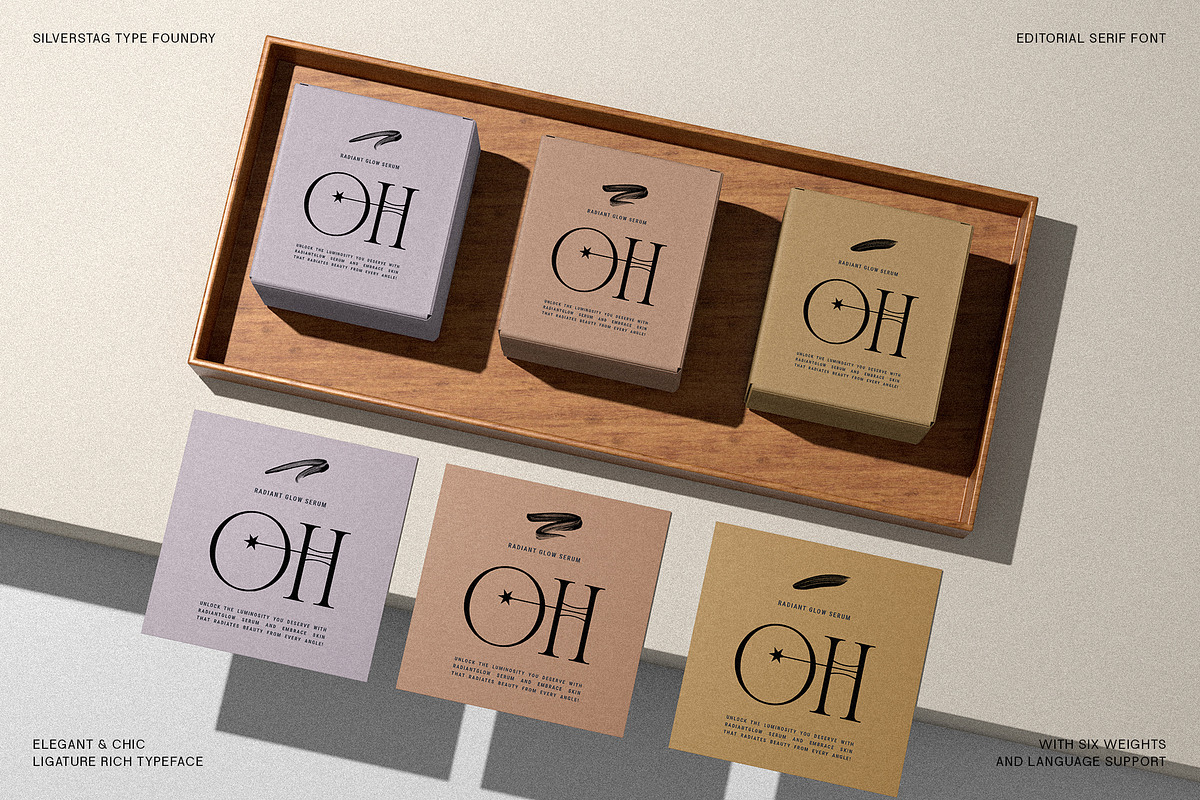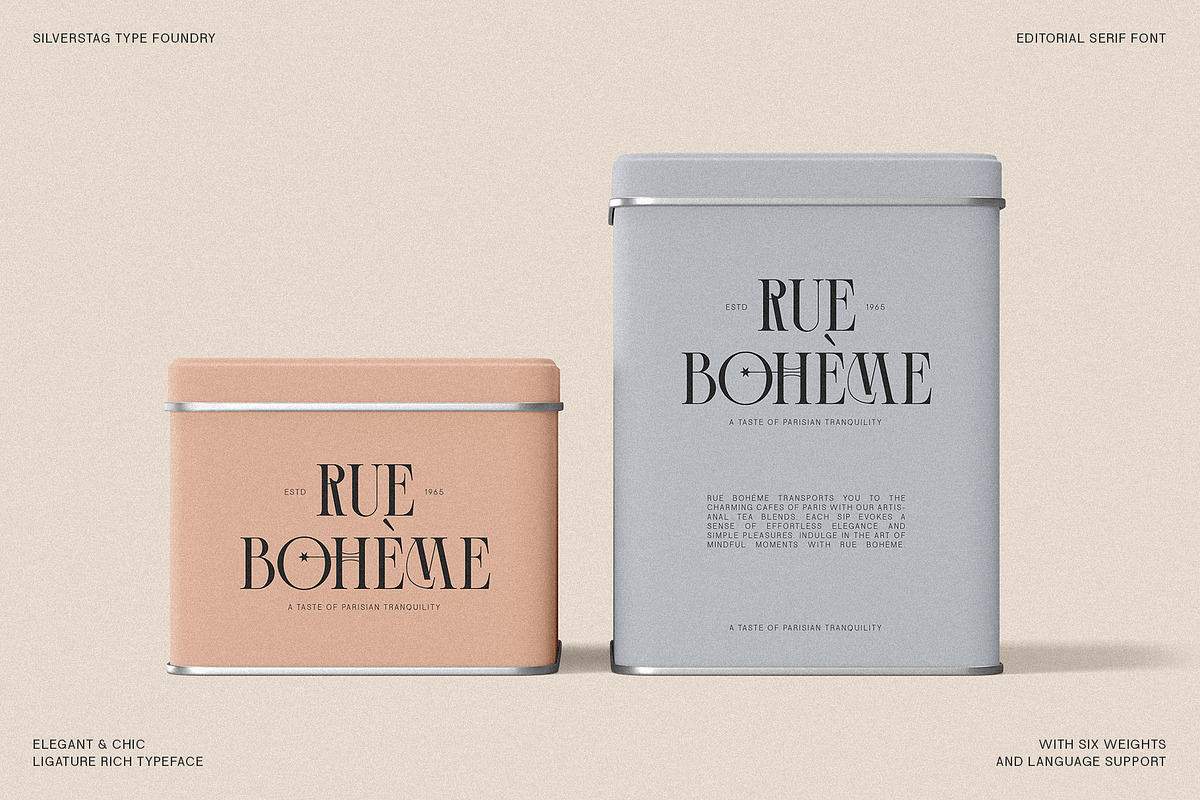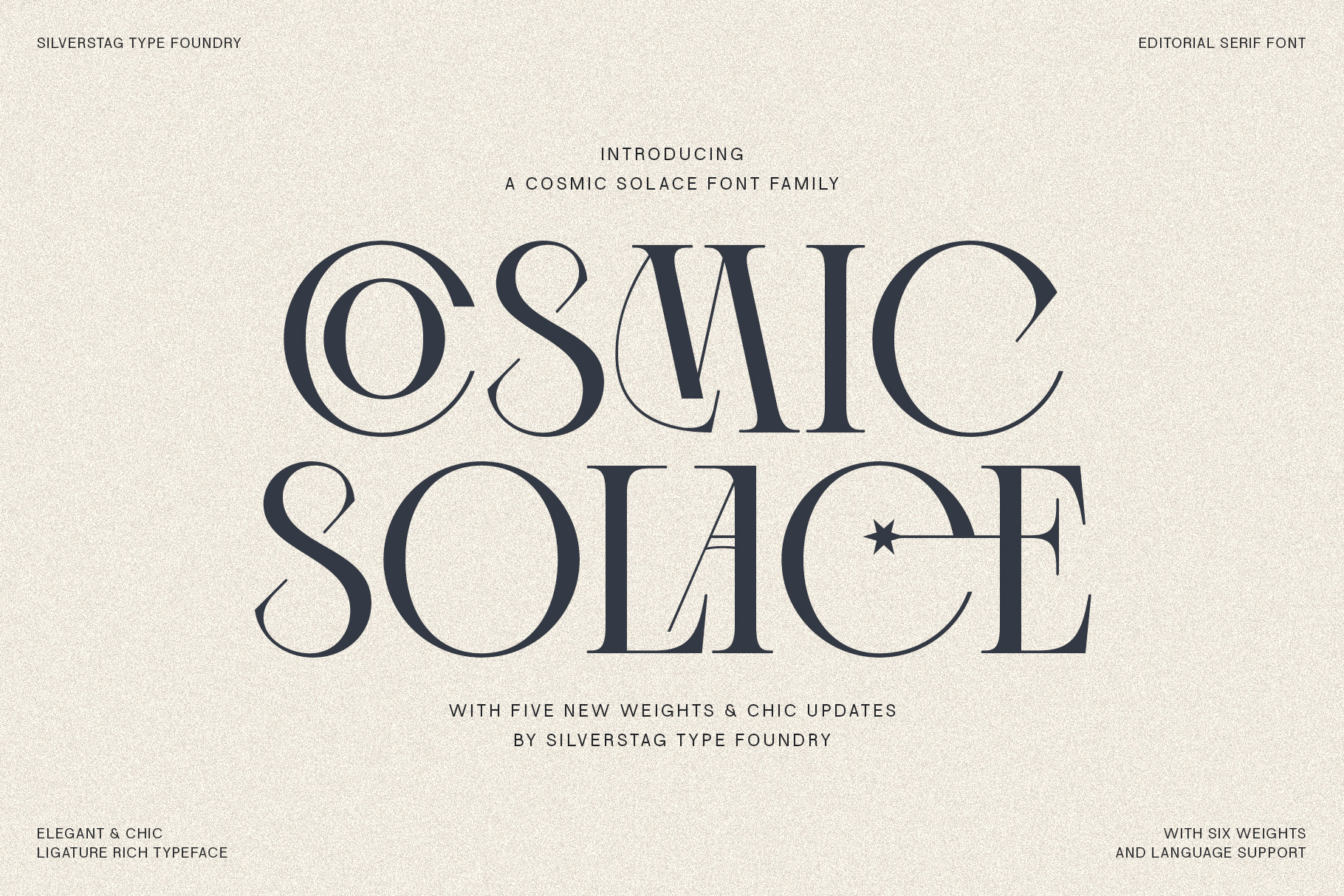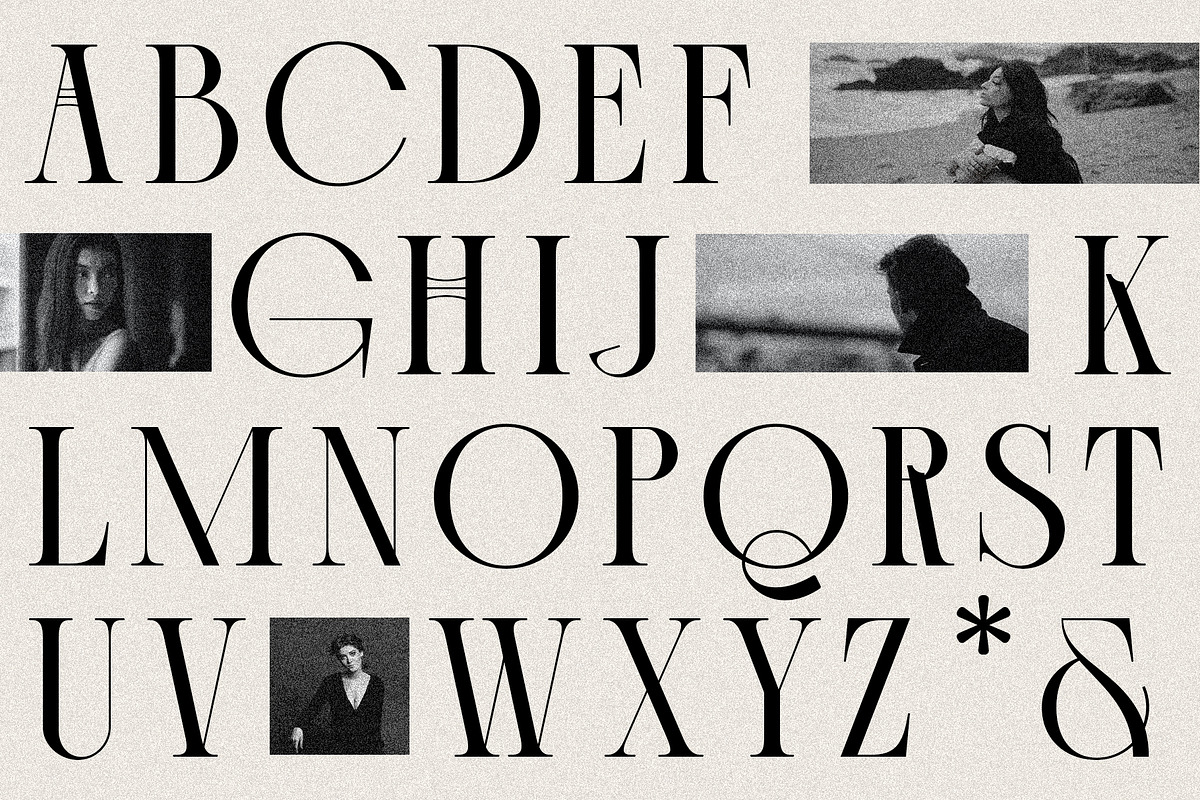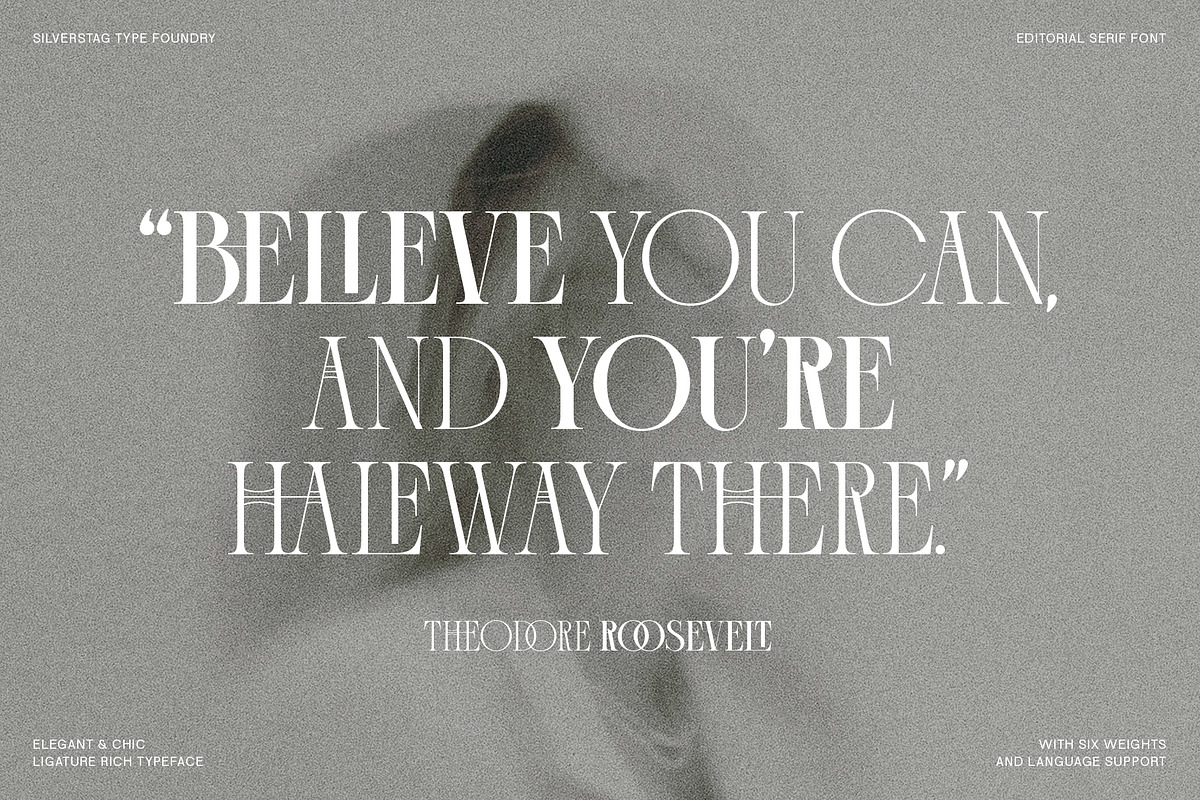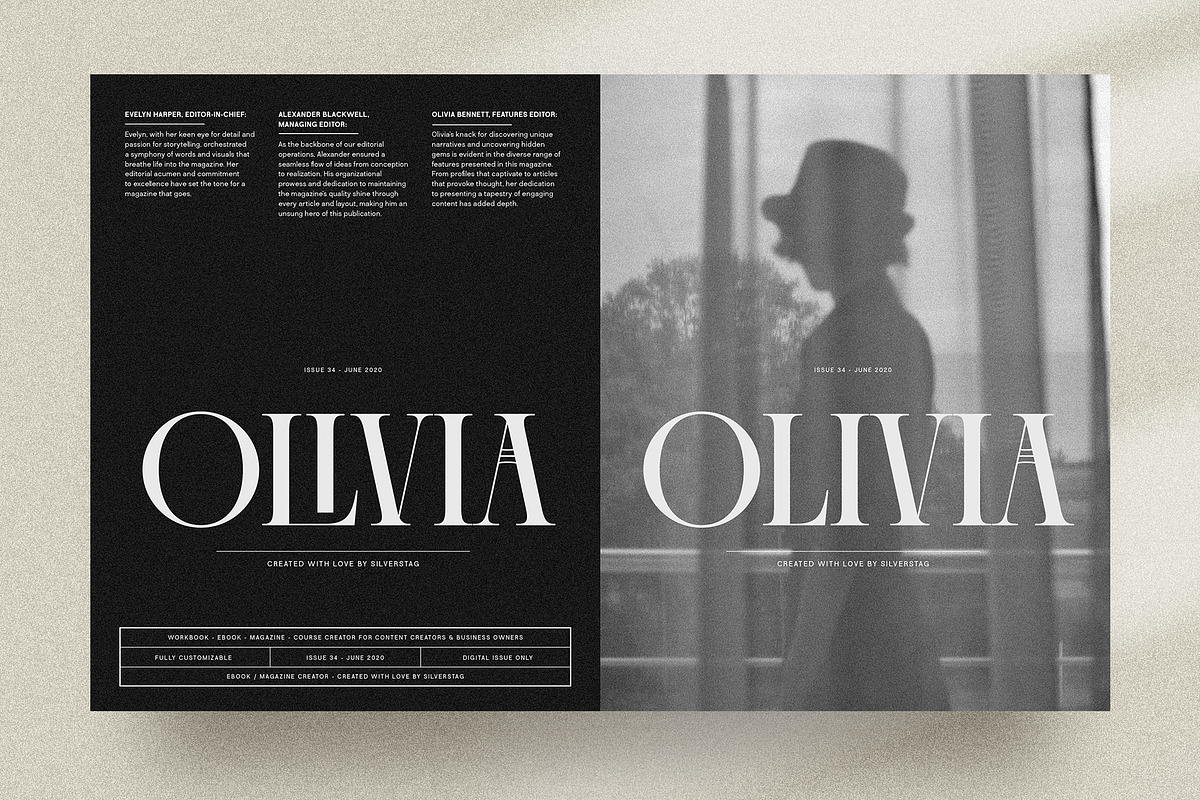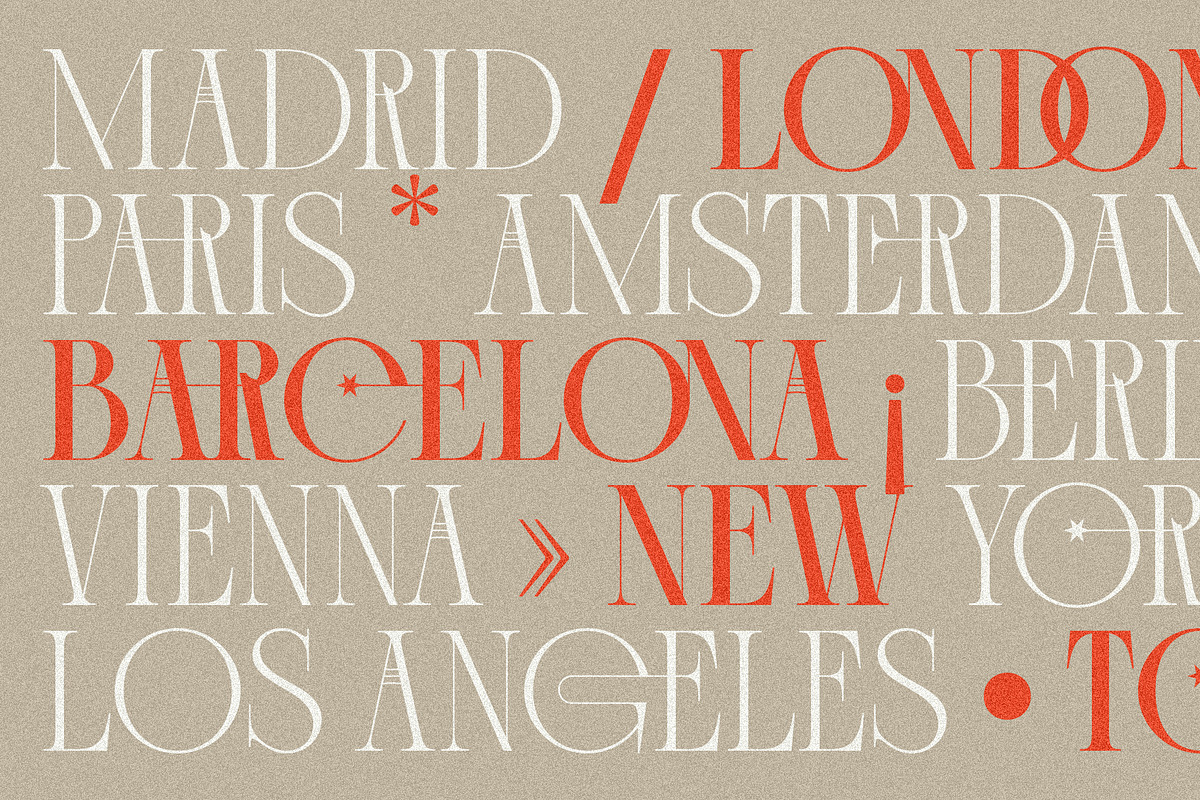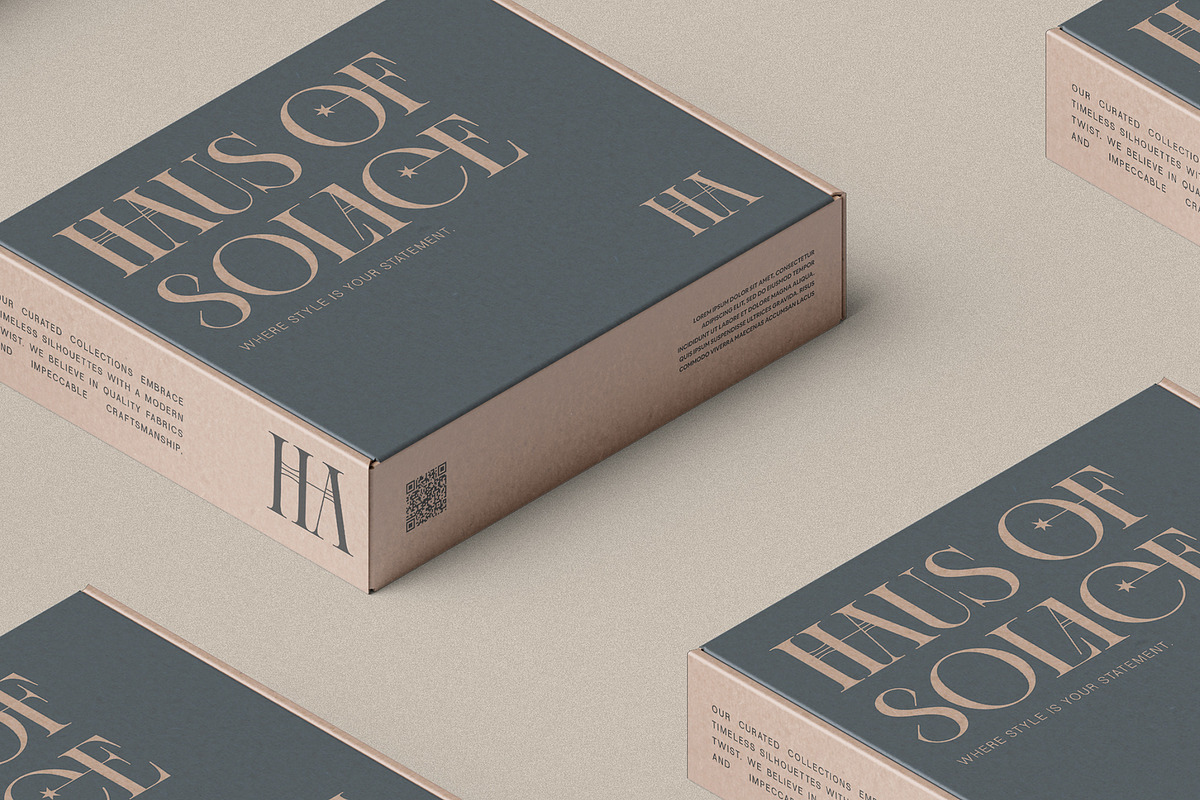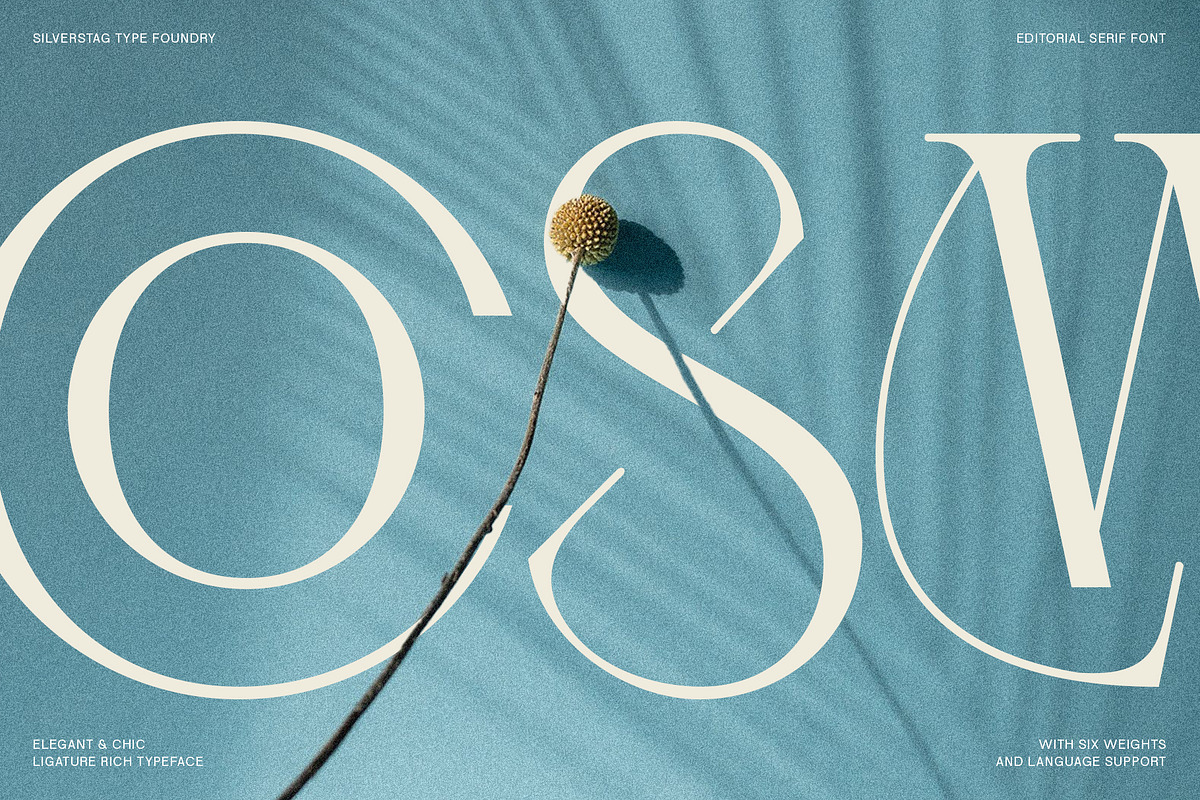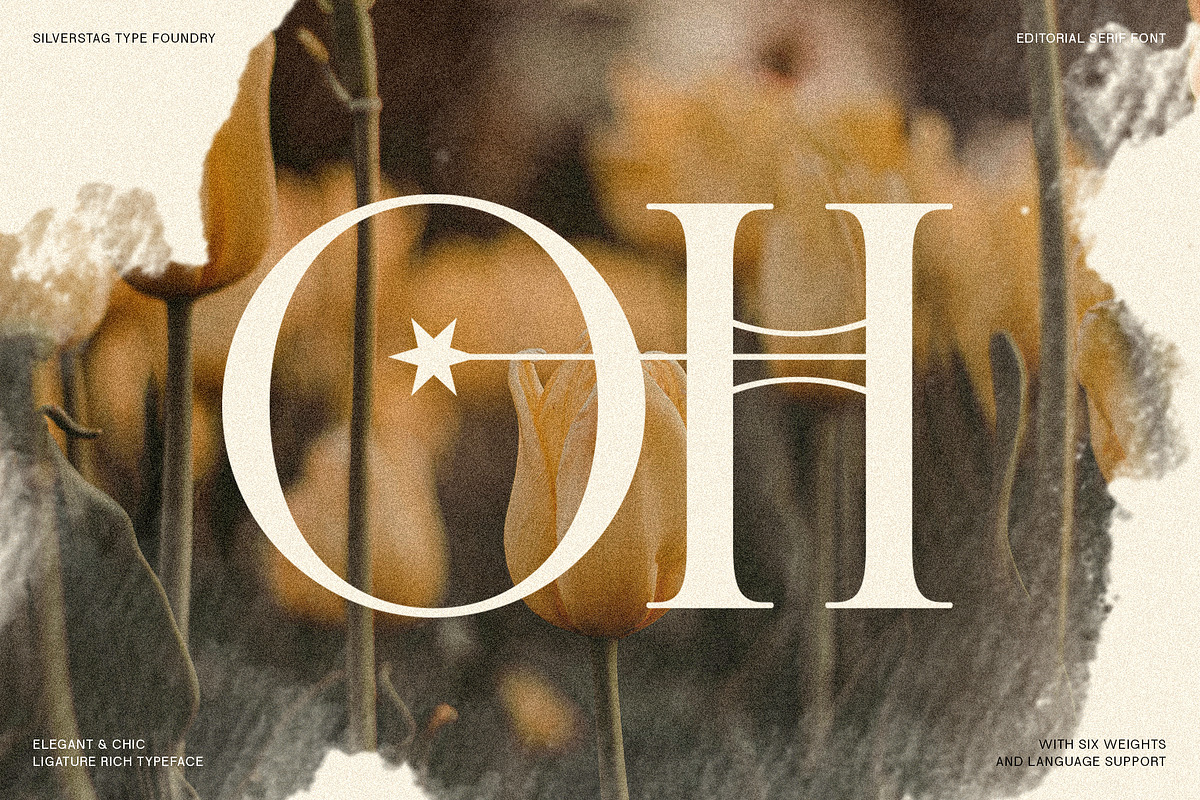
Cosmic Solace - Ligature Typeface
Cosmic Solace: The Expanded Family Arrives!
Experience the full spectrum of elegance with the highly anticipated expansion of Cosmic Solace. This beloved serif font, adorned with over 130 chic ligatures, returns with a complete family of six weights, from the delicate whisper of Regular to the powerful command of Black. Its extensive language support for over 90 languages ensures your designs resonate across borders.
What's New?
- Expanded Weight Range: Unleash the versatility of Cosmic Solace with five brand-new weights, offering the perfect balance for any design project.
- Refined Details: We've meticulously enhanced stroke contrast and legibility, ensuring Cosmic Solace shines in every size and application.
- Small but Mighty Updates: Enjoy subtle improvements for an even more seamless design experience.
Where Cosmic Solace Family Shines:
- Effortless Branding: Craft logos, packaging, and marketing materials that radiate timeless sophistication.
- Editorial Excellence: Design magazine layouts, website headers, and other editorial projects with a touch of luxury.
- Enthralling Invitations: Create wedding invitations, event announcements, and personal correspondence that leave a lasting impression.
- Design with Confidence: With its expanded weight range, chic ligatures, and global reach, Cosmic Solace Family tackles any design challenge with grace and power.
This comprehensive upgrade offers endless possibilities for designers seeking a touch of elegance, expressive ligatures, and global versatility.